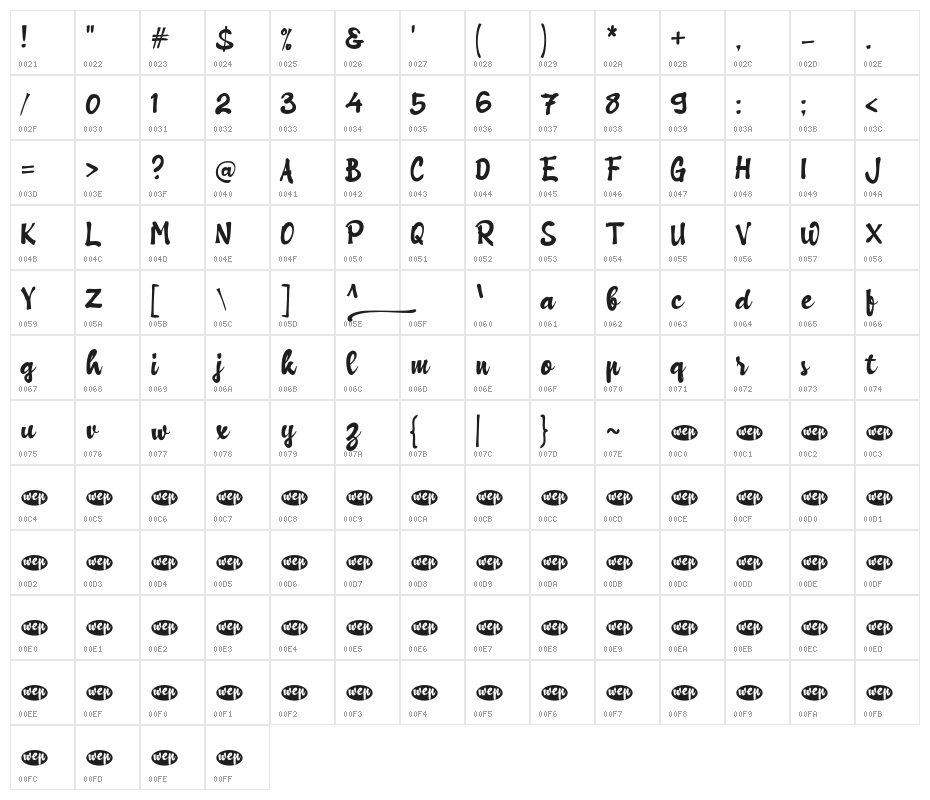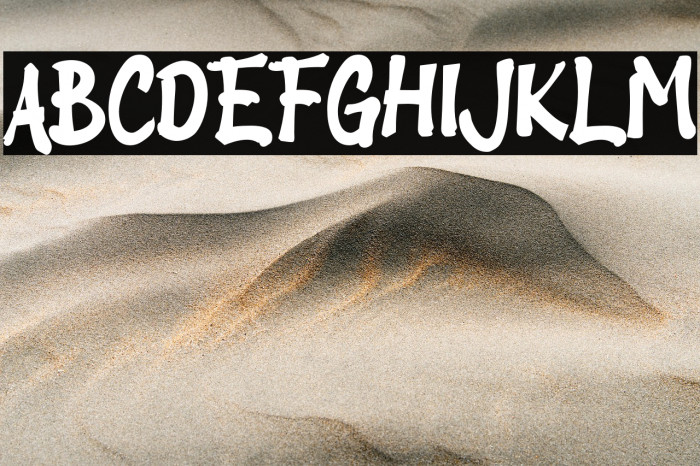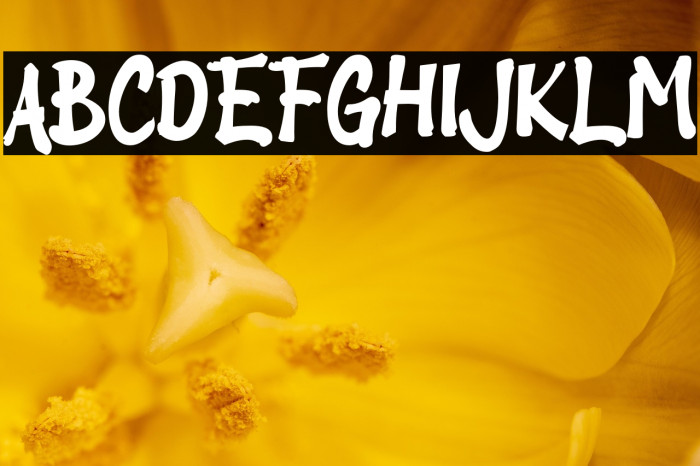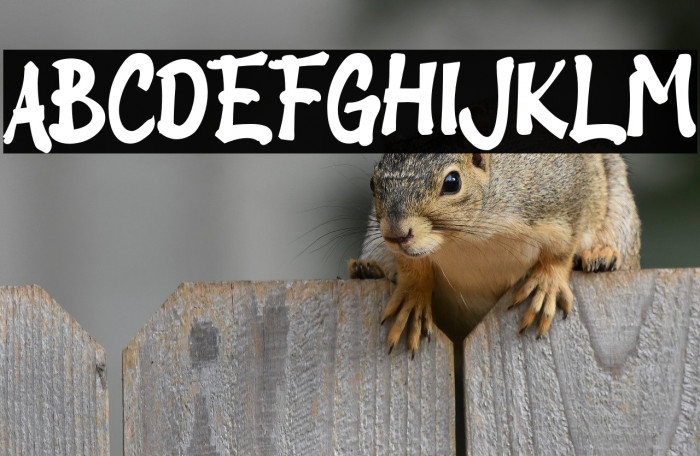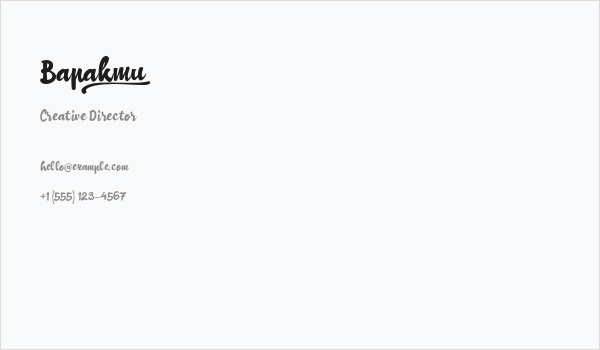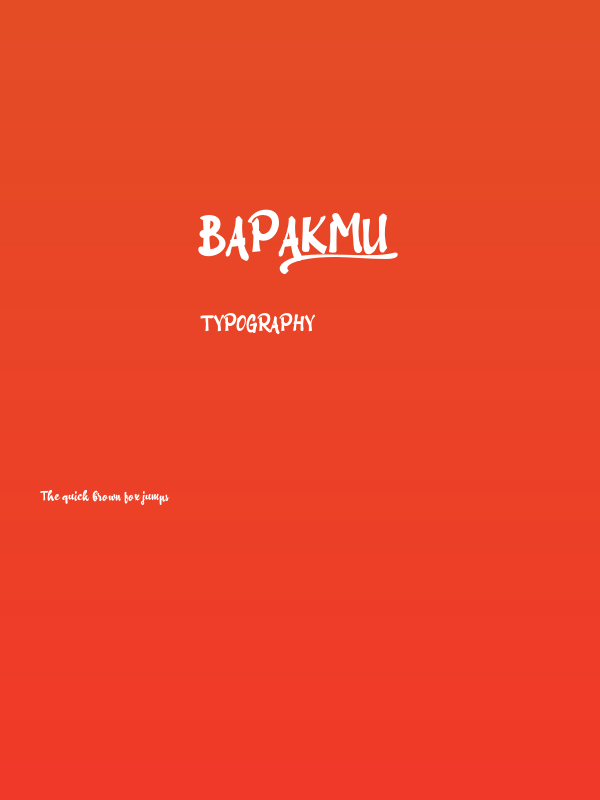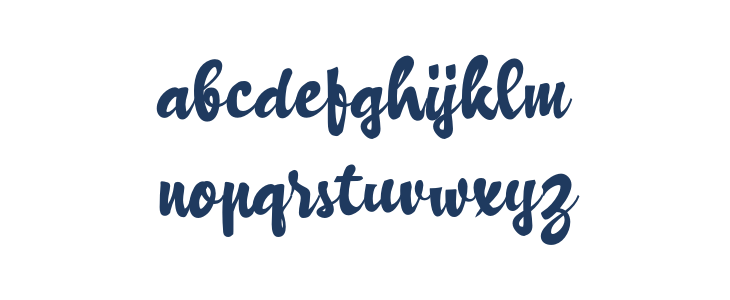
Bapakmu_ Font
Bapakmu_ Description
This font features a bold and dynamic script style with a playful and energetic feel. The uppercase letters are robust and slightly irregular, giving a handcrafted appearance. The lowercase letters maintain a consistent flow, enhancing the script-like quality. Numbers and special characters are designed to match the overall style, ensuring a cohesive look. The font's thick strokes and rounded edges contribute to its friendly and approachable character, making it suitable for a variety of creative applications.
| Proposed Projects | Ideal for branding, packaging, posters, and invitations where a lively and personal touch is desired. |